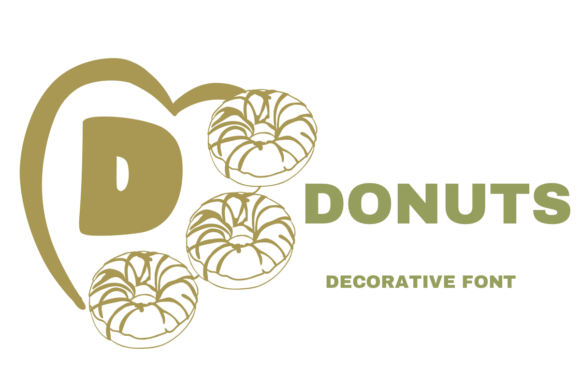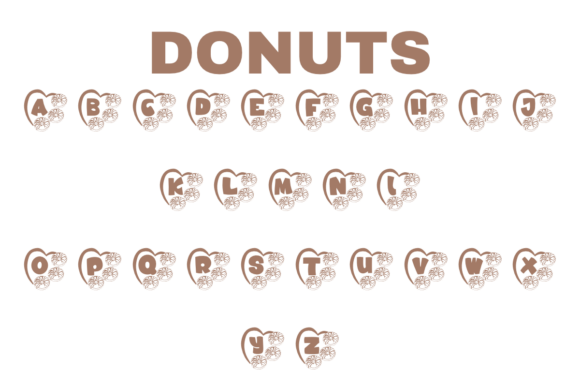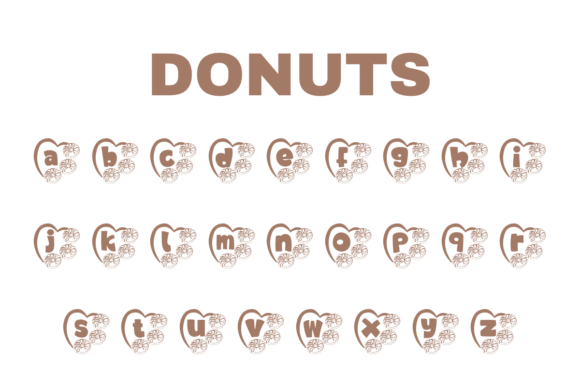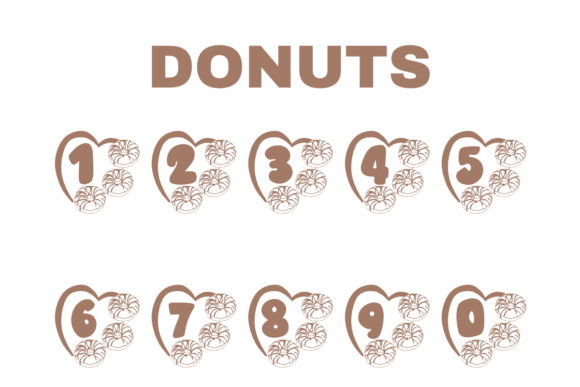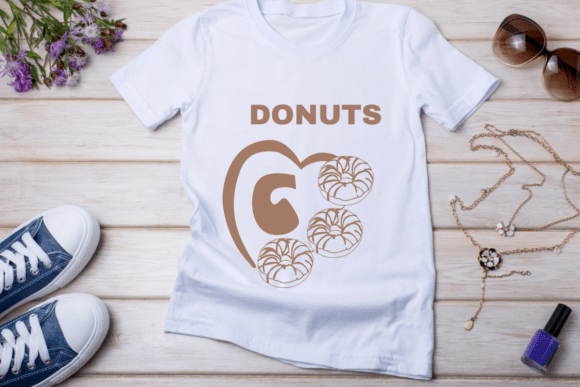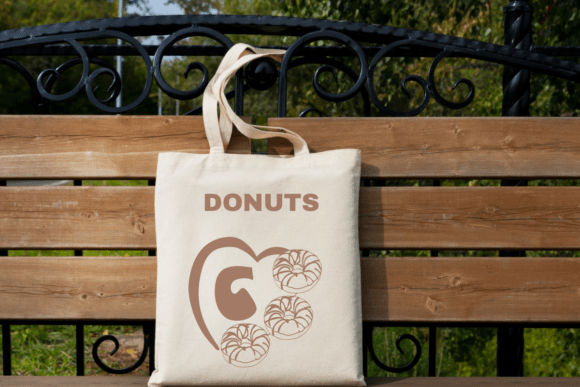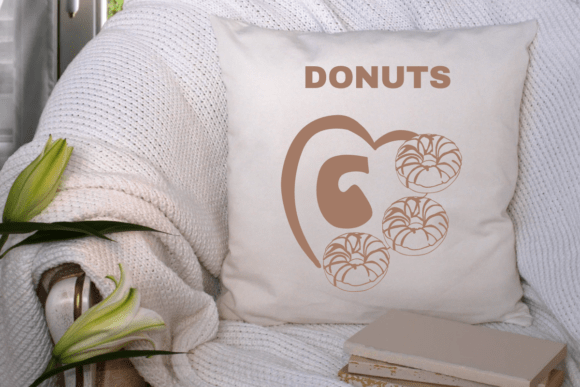
The Sweet Allure of the Donuts Font
Have you ever found yourself sitting at your desk, surrounded by scattered papers, pens, and a half-eaten cup of coffee, yet still unable to focus on your task? You’re not alone. We’ve all been there. But then, something magical happens. You stumble upon a quirky font that makes your heart skip a beat, and suddenly, the words start flowing. For many creatives, this moment is a game-changer, and it’s exactly what happens when you discover the Donuts Font.
This delightful decorative font is perfect for adding a touch of whimsy to your projects. Whether you’re writing a diary, creating greeting cards, or designing banners, the Donuts Font is a valuable asset in your design toolkit. Its playful nature makes it a great choice for a wide range of applications, from social media posts to mugs and stationery.
Donuts Font Key Features
- Font Family: Donuts Font is a sans-serif typeface with a rounded, friendly feel.
- Unique Characteristics: Donuts Font features a unique rounded design, with subtle curves and rounded edges, giving it a friendly and approachable feel.
Review: Donuts Font
Overall, I was excited to dive into the Donuts Font, but my experience was a bit of a mixed bag. Here’s the breakdown:
- Unique and playful design: The Donuts Font is definitely one-of-a-kind, and I appreciate the creativity that went into its design.
- Good for playful or whimsical projects: If you’re looking for a font to add some personality to your design, Donuts Font could be a great choice.
- Limited legibility: While the font is visually appealing, it can be difficult to read, especially in smaller sizes or at a distance.
- May not be suitable for formal or professional projects: The font’s playful nature makes it more suited for creative or entertainment projects.
Overall, I’d say the Donuts Font is a fun and quirky addition to any designer’s toolkit, but it’s not without its limitations. If you’re looking for a unique font to add some personality to your design, it’s worth checking out. However, if you need a font for a formal or professional project, you may want to look elsewhere.
Getting the Most Out of Donuts Font
Here are some tips to get the most out of Donuts Font:
- Use it for bold, eye-catching headings and titles.
- Pair it with a clean and simple font for body text.
Donuts Font is perfect for:
- Playful and whimsical designs.
- Children’s products and packaging.
Alternatives to Donuts Font